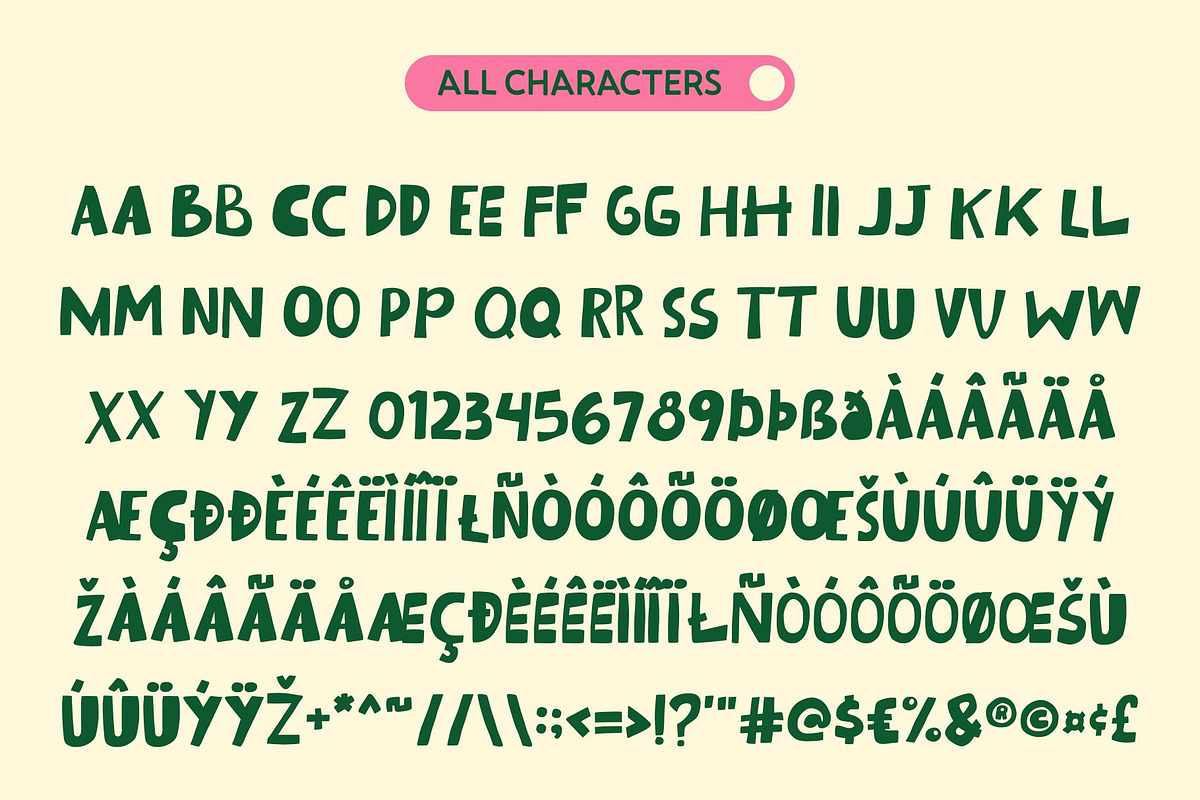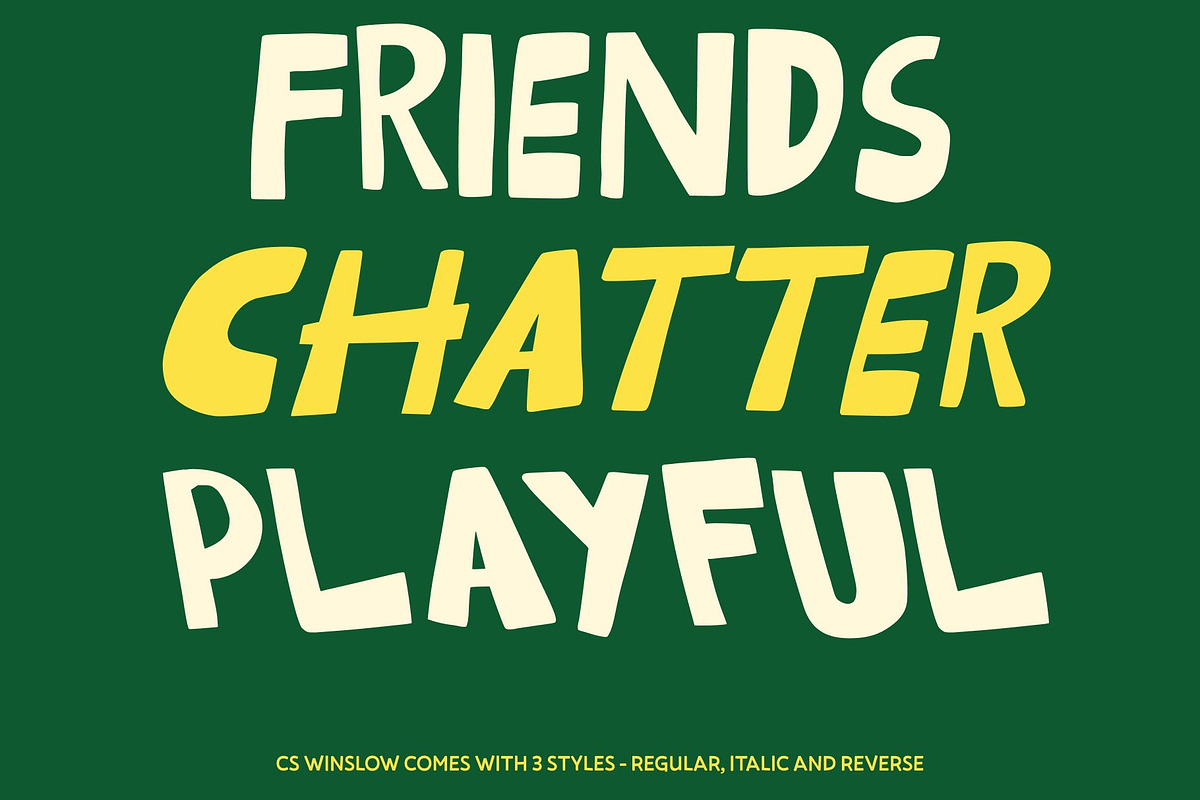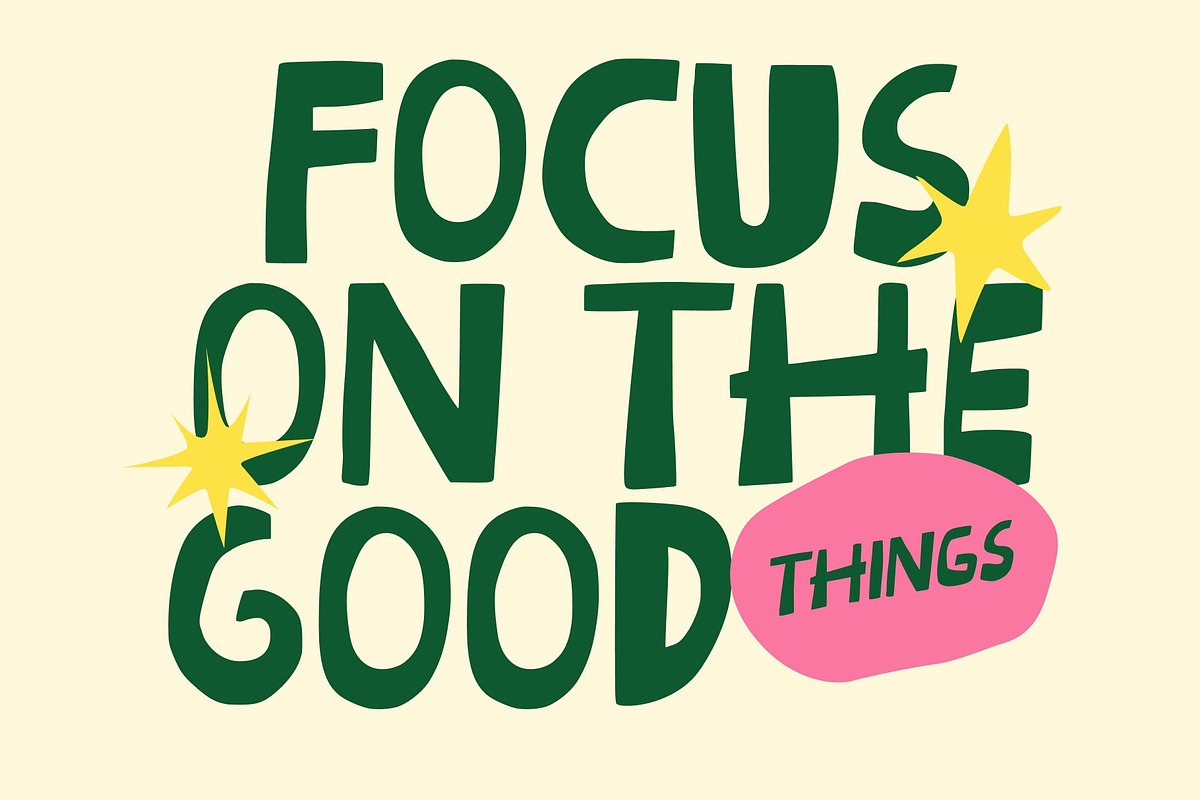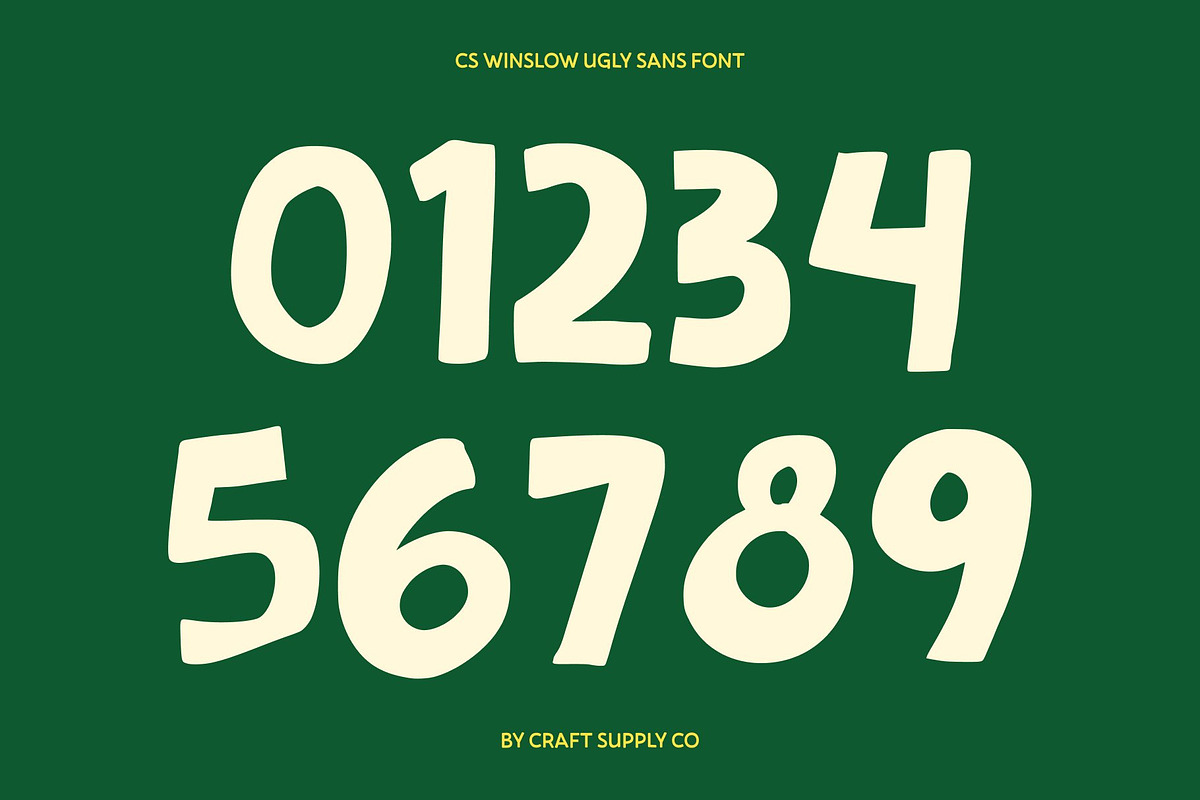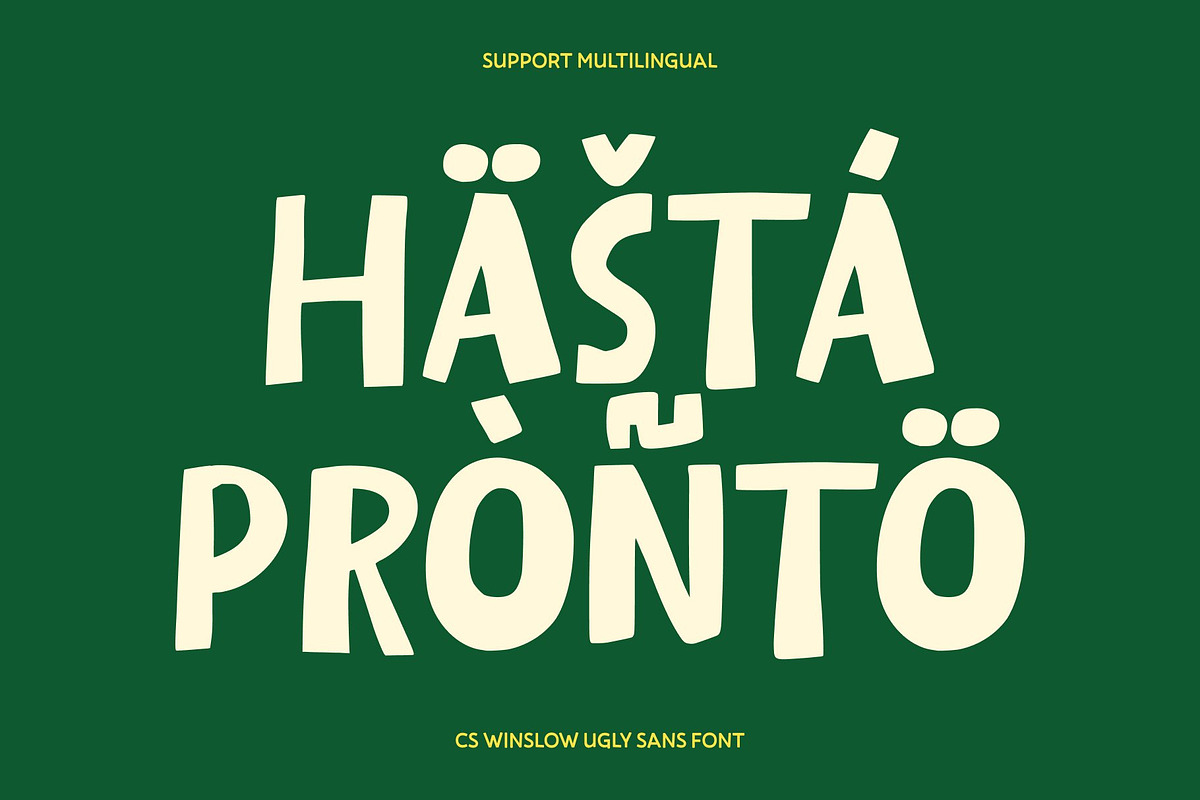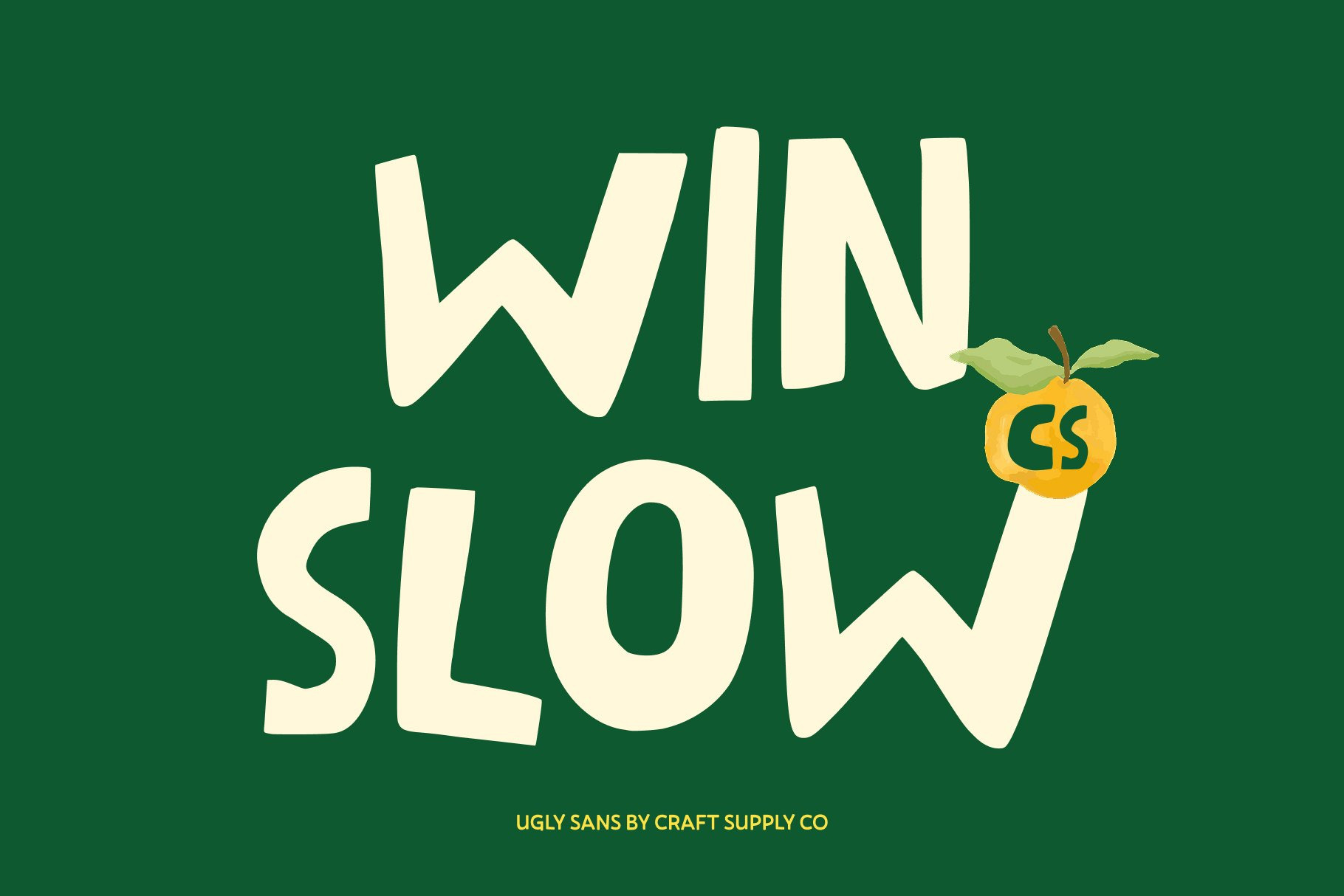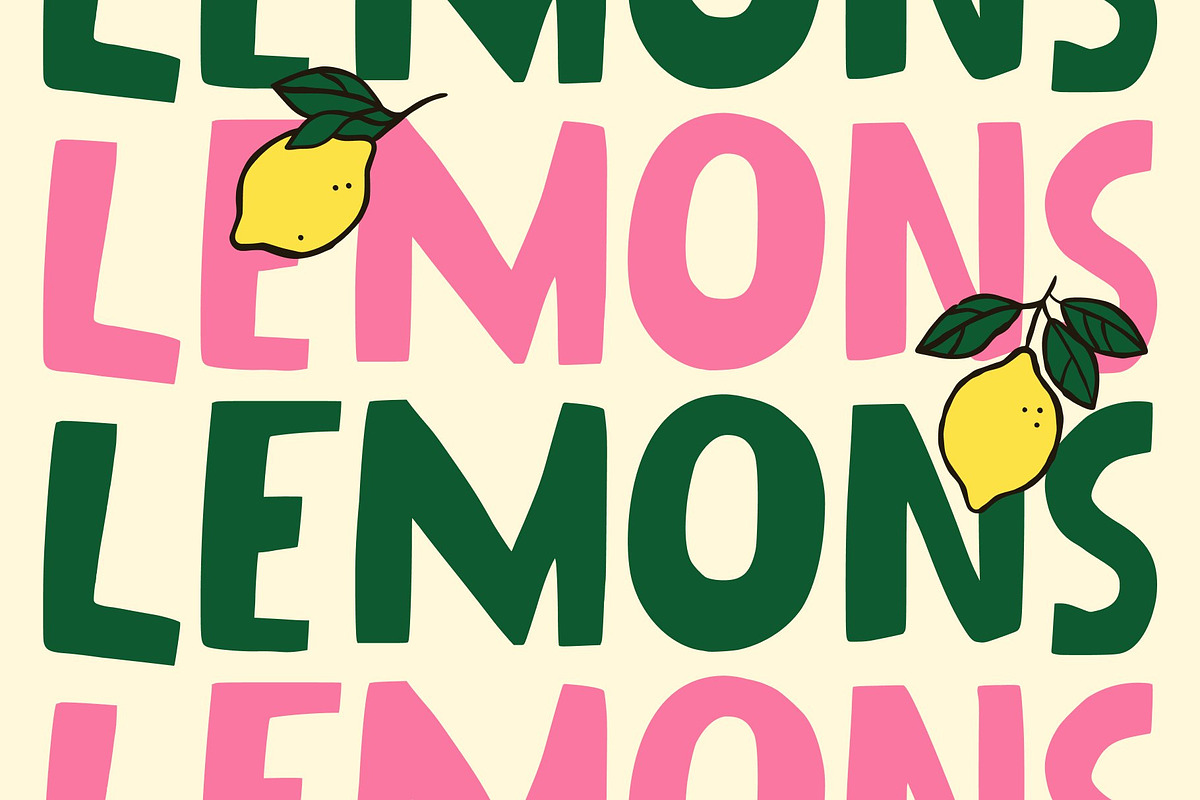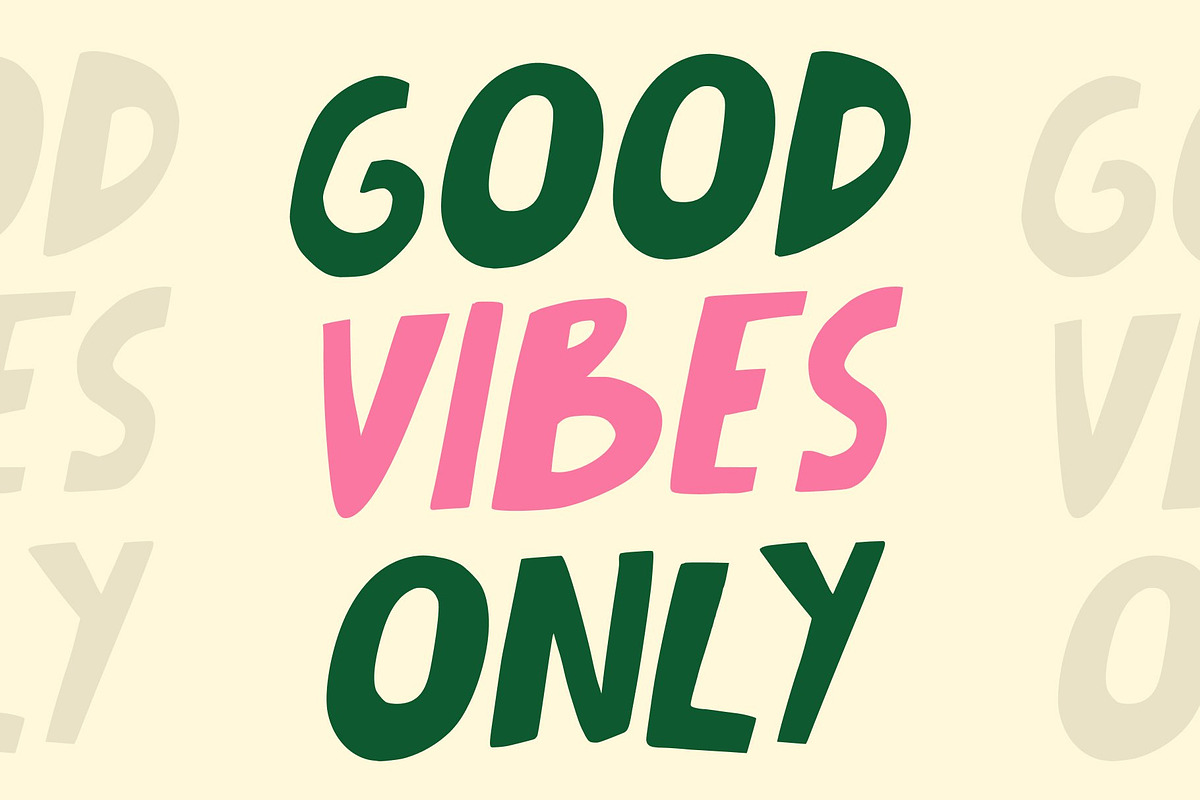
CS Winslow – Fun Font
CS Winslow – Playful Font with Bold, Friendly Energy
Bold, Playful Style with Friendly Character This is a playful and energetic display font designed to bring joy and personality to your creative projects. Its bold strokes and rounded, friendly shapes create a lively atmosphere, making every design feel approachable, cheerful, and full of charm.
Fun Letterforms for Youthful and Creative Designs Crafted with expressive proportions and smooth curves, delivers a youthful, dynamic aesthetic. Each letter carries a fun personality that instantly enhances visual impact, making it a great choice for designers seeking a font that radiates warmth and creativity.
Perfect for Youth Branding and Greeting Cards This font shines in youth-oriented branding, lively greeting cards, playful logos, or any design that needs a burst of fun. Its friendly shapes help create a welcoming impression, ensuring your message feels personal, upbeat, and memorable.
Versatile for Casual and Lighthearted Projects Whether you’re working on posters, social media graphics, product packaging, or casual editorial layouts, adapts effortlessly. Its bold yet charming form ensures strong readability while maintaining a fun, relaxed tone perfect for designers who want to bring joy and character into their work.